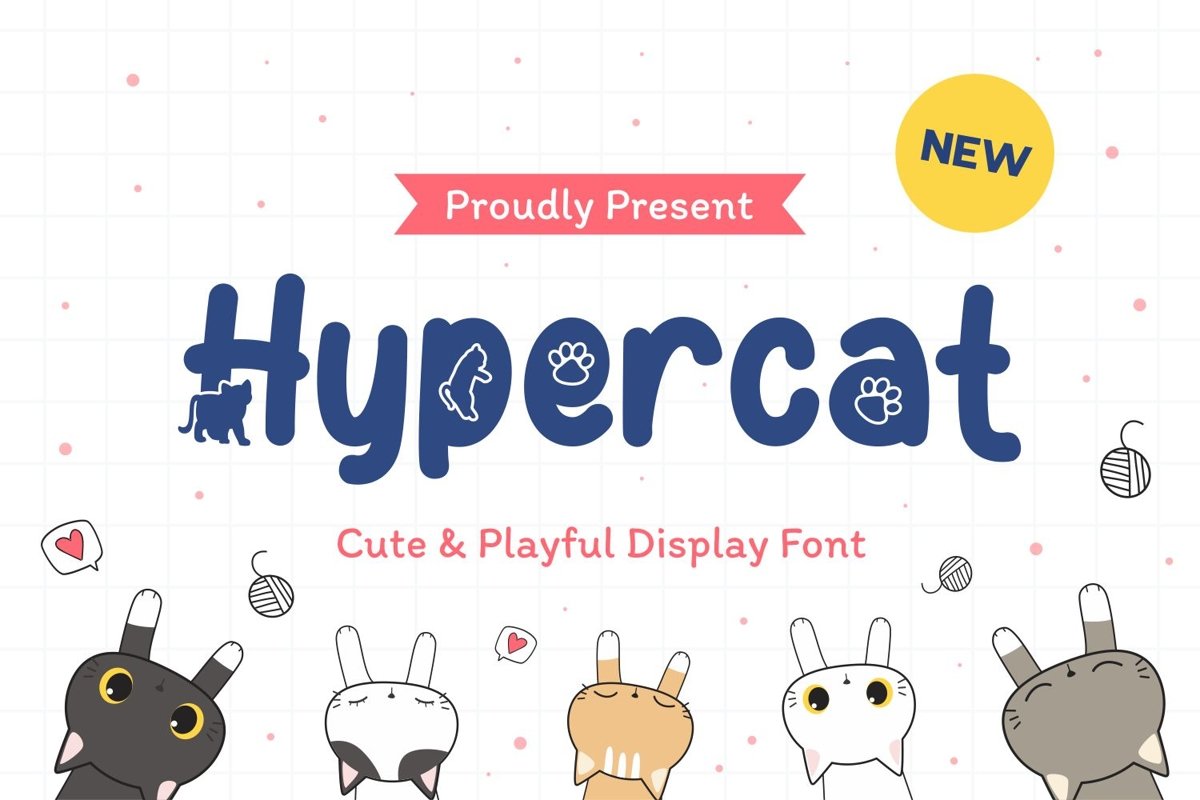
HyperCat is san serif display come with animal themes. We wanted to create the most unique and put animal shape characters. It matches applies in some designs such as the logotype, brand, packaging, quotes, cute poster, kids shirt, cover book, birthday invitation and more custom design. The features uppercase, lowercase, numeral, punctuation & symbol, multilingual support, PUA encoded (fully accessible without additional design software).
HyperCat